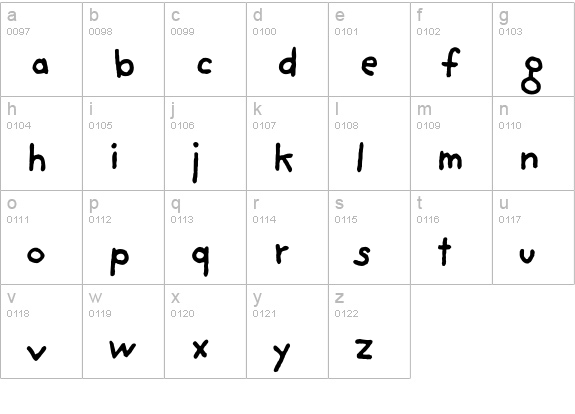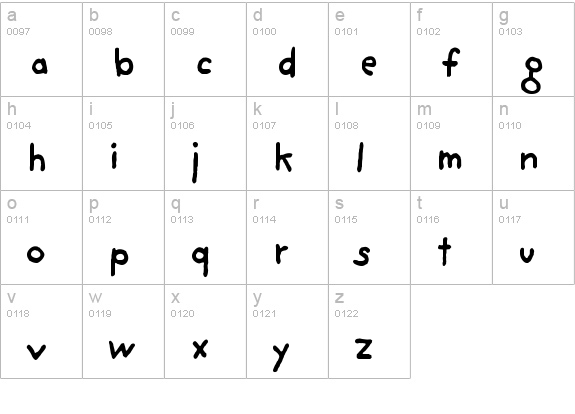
Providence-SansBold is a striking and versatile typeface that exudes a modern and professional aesthetic. With its bold weight and clean lines, this font is perfect for making a bold statement in your design projects. Whether you're creating eye-catching headlines, sleek logos, or impactful branding materials, Providence-SansBold is sure to command attention and leave a lasting impression. The best part? Providence-SansBold is available for free download at FontsMarket.com, making it easily accessible for designers and creatives looking to add a touch of sophistication to their work. Don't miss out on this opportunity to elevate your designs with the sleek and impactful Providence-SansBold font. Download it now and start creating stunning visuals that stand out from the crowd.